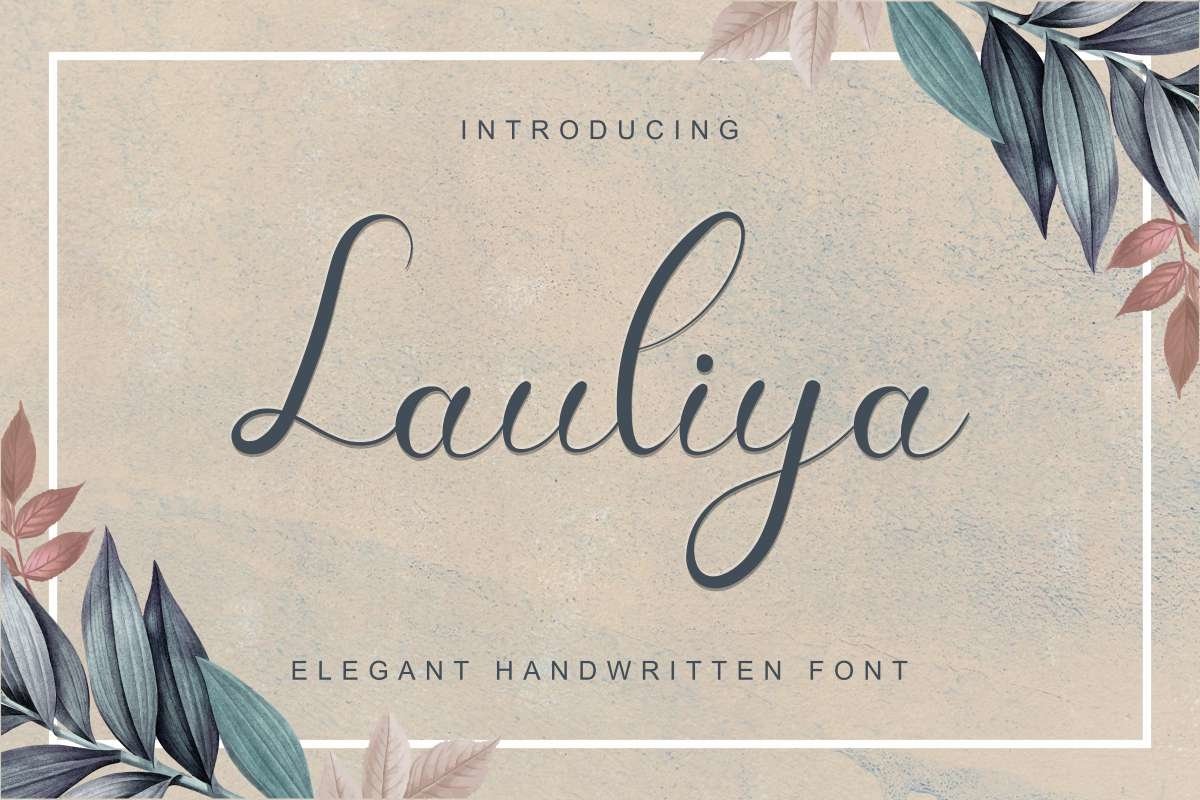
Lauliya
Hello,Introducing! Lauliya Calligraphy FontThis is our newest font handcrafted in our Studio. Made by two of our lovely artists : Widiyawati and Suci.Lauliya Calligraphy Font is an exclusive script typeface with unique and elegant style. The typeface has a stunning characters set, perfectly kerned and spaced. The style characters of this font is elegant, stylish, sophisticated and handwriting style.Lauliya Calligraphy Font  will be great for any projects including : branding, logo, stationery, business card, signage, flyer, brochure etc. Many all industries will be match for this typefaces: wedding, events, real estate, architect, law firm, florist, gardening, makeup artist, travel, hotel, musician, cafe, packaging etcHere’s what you’ll get on the zip pack :